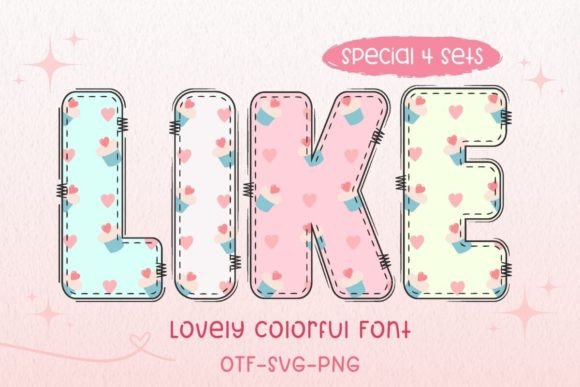
Introducing Like Font: The Perfect Addition to Your Valentine’s Day Projects
Are you looking for a beautiful and vibrant font to make your Valentine’s Day projects stand out? Look no further than Like Font! This lovely colorful font is perfect for all your Valentine-themed projects, and we’re excited to share its features and benefits with you.
What is Like Font?
Like Font is a stunning, multi-colored font designed specifically for Valentine’s Day projects. Its unique and playful style makes it an ideal choice for creating eye-catching designs that will capture the hearts of your audience. Whether you’re a designer, a crafty DIY enthusiast, or a business owner looking to create engaging content, Like Font is the perfect addition to your font collection.
What Can I Use Like Font For?
Why Choose Like Font?
There are many reasons why Like Font stands out from the crowd:
- Unique and Playful Style: Like Font’s colorful and whimsical design makes it perfect for Valentine’s Day projects.
Tips for Using Like Font
Here are some tips for getting the most out of Like Font:
- Experiment with Different Colors: Like Font comes in a range of colors, so don’t be afraid to experiment and find the perfect combination for your project.
- Pair with Other Fonts: Like Font pairs well with other fonts, so try combining it with a bold or script font for added visual interest.
- Use on Different Backgrounds: Like Font looks great on a range of backgrounds, from solid colors to patterns and textures.
Like Font is the perfect addition to your Valentine’s Day projects. With its unique and playful style, high-quality files, and compatibility with popular design programs, it’s an ideal choice for designers, crafty DIY enthusiasts, and business owners alike. Whether you’re creating banners, content, mugs, cards, shirts, stationery, or social media posts, Like Font is sure to make your designs stand out.